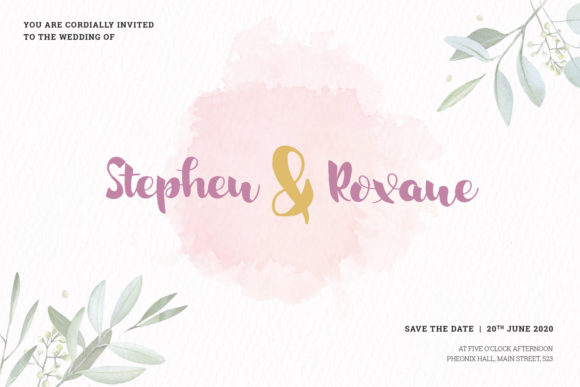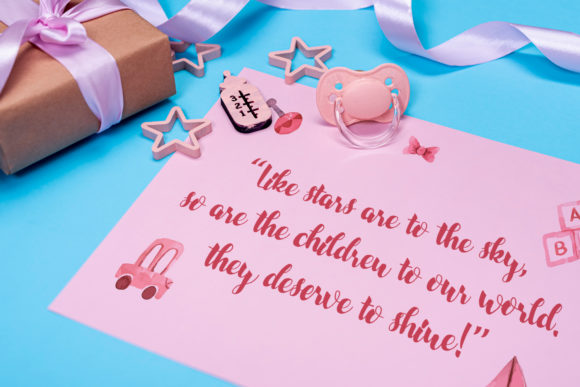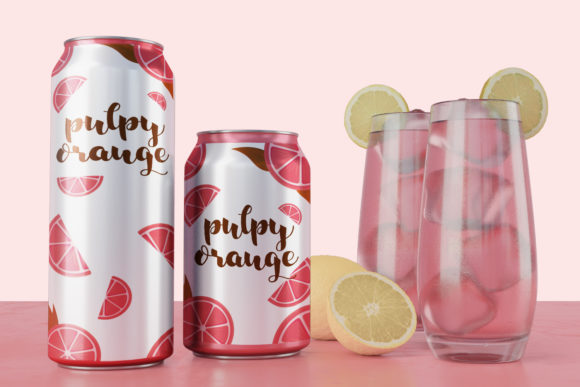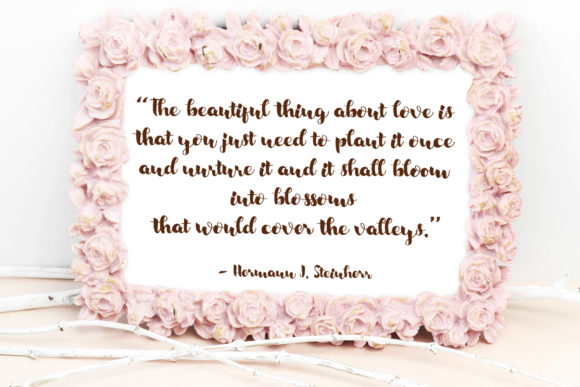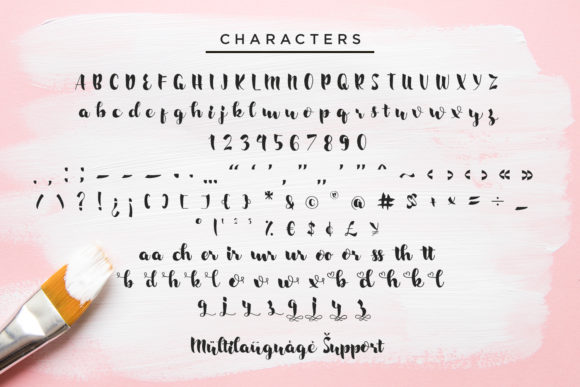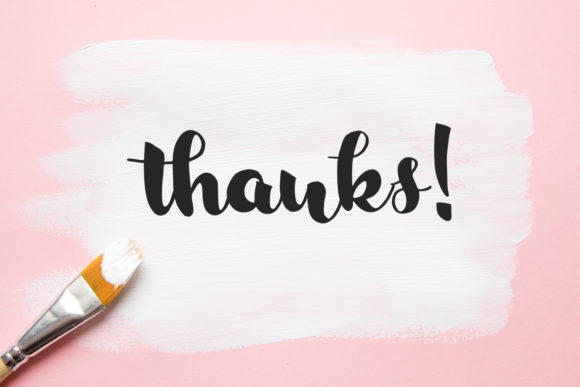
Introduction to Ralynda Font
Have you ever been working on a creative project, pouring your heart and soul into it, only to be held back by the perfect font? That’s where the magic of Ralynda Font comes in. Imagine being able to bring your high-quality designs to life with a single click, effortlessly creating a transparent background or adding a touch of elegance to your design resource.
As designers, we know that the right font can make all the difference in bringing our vision to life. And that’s exactly what Ralynda Font offers – a bold and elegant handwritten font that’s perfect for any creative project. With its well-rounded letters and versatile style, this font is a must-have for any design enthusiast.
Not only is Ralynda Font a valuable resource for designers, but it’s also incredibly easy to use. With PUA encoding, you can access all of the glyphs and swashes with ease, making it a seamless addition to your design workflow.
Key Features of Ralynda Font
- High-quality, hand-drawn design ideal for creative projects
- Features a transparent background, making it suitable for a variety of design applications
- Includes a range of characters, including uppercase and lowercase letters, numbers, and punctuation
- Perfect for designers looking for a unique and creative design resource
Honest Review: Ralynda Font
I recently stumbled upon the Ralynda Font, and I’m excited to share my thoughts on this design resource. As a designer, I’m always on the lookout for high-quality fonts to elevate my creative projects.
- ✨ The Ralynda Font is a beautiful, elegant script font that’s perfect for adding a touch of sophistication to your designs.
- ✨ The font is highly customizable, making it easy to adjust the size, color, and style to fit your project’s needs.
- ✨ One of the standout features of the Ralynda Font is its transparent background, which makes it easy to layer over images and textures.
However, I did encounter a few limitations while using the font:
- ⚠️ The font can be a bit tricky to work with on smaller scales, as the details can get lost in the design.
- ⚠️ There are some limitations to the font’s customization options, which may not be ideal for designers who require a high degree of control.
Tips for Getting the Most Out of Ralynda Font
Experiment with different font sizes, colors, and styles to add depth and visual interest to your design. Consider combining Ralynda Font with other design elements to create a unique and eye-catching effect.
Ralynda Font is ideal for creative projects, such as logo design, branding, and advertising materials. Its high-quality design and transparent background make it a valuable design resource for professionals and hobbyists alike.
Does Ralynda Font have a transparent background?
No, Ralynda Font is a solid font with a bold and eye-catching design. It does not have a transparent background, but its unique design elements and stylish look make it a great choice for any design project.